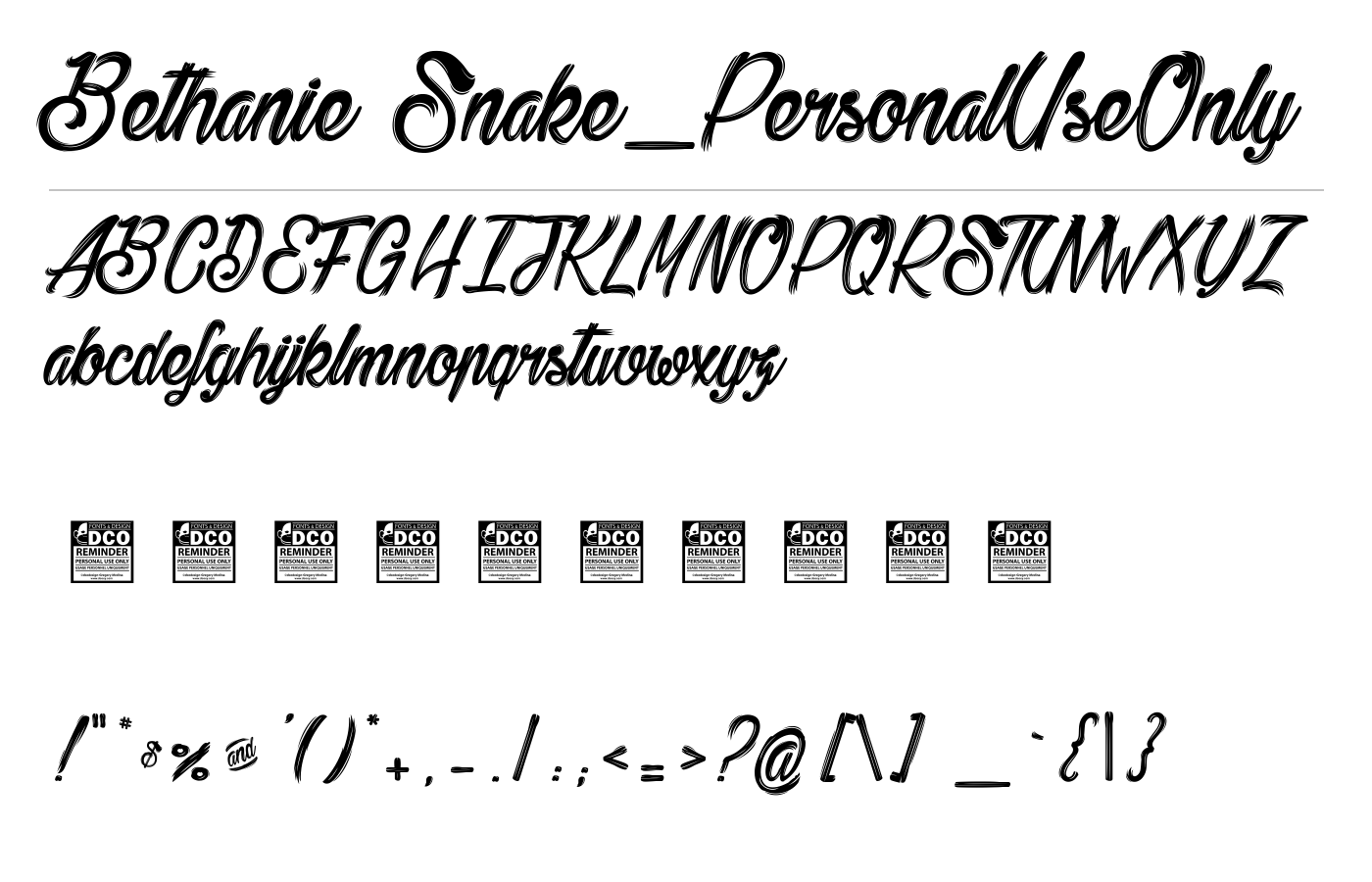
Bethanie Snake_PersonalUseOnly is a stylish script font with bold, flowing strokes that give it a lively, hand-brushed feel. Its mix of thick and thin lines creates dynamic contrast and a sense of movement, making it perfect for eye-catching headlines, logos, and creative branding that seeks to convey energy and personality. This font works especially well in designs that want to blend elegance with a modern, artistic touch.